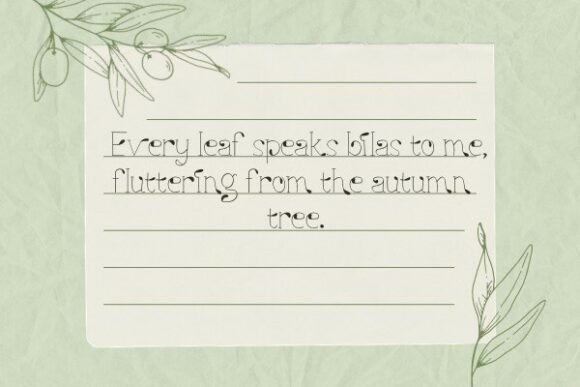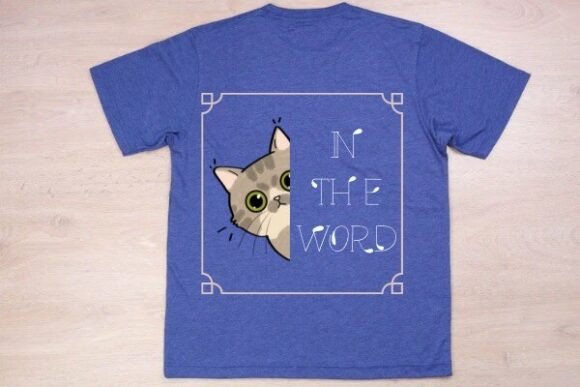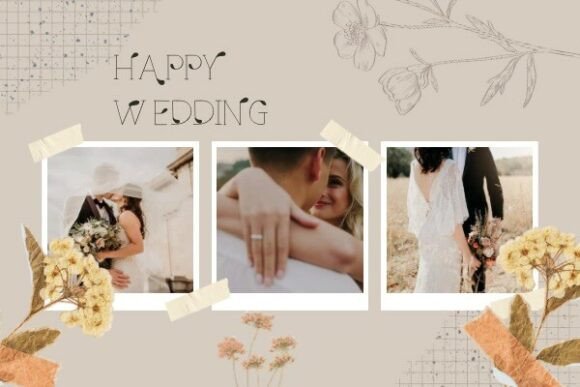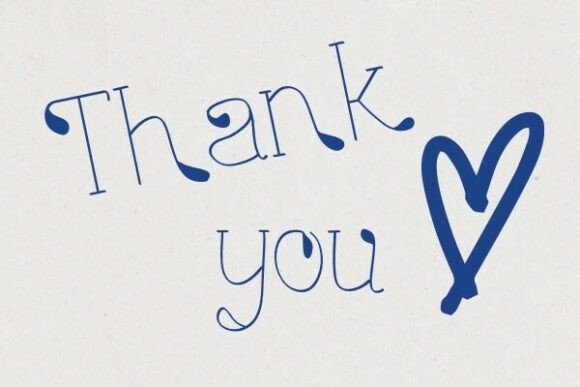
Introduction to Maiddie Font
Do you ever find yourself in the middle of a creative project, pouring your heart and soul into a design, and suddenly, the perfect font just doesn’t exist? You imagine the perfect handwritten feel, but can’t quite put your finger on it. This is where the Maiddie Font comes in – a game-changing, high-quality design resource that’s sure to elevate your next creative project.
Whether you’re working on a T-shirt design, a coffee mug, or a greeting card, the Maiddie Font is the perfect choice. Its unique, handwritten style is not only captivating but also instantly recognizable. With a free download available, you can start using this amazing font in your next project today, complete with a transparent background for seamless integration into your designs.
Key Features of Maiddie Font
- High-quality, vector-based font design suitable for various creative projects
- Perfect for designers looking for a unique and stylish design resource
- Includes a wide range of characters, including uppercase and lowercase letters, numbers, and punctuation marks
Honest Review: Maiddie Font
As a designer, I’m always on the lookout for unique and high-quality design resources to elevate my creative projects. Recently, I stumbled upon Maiddie Font, and I’m excited to share my honest review with you.
- The font features a beautiful, transparent background that adds an extra layer of sophistication to any design.
- It’s perfect for creatives working on projects that require a touch of elegance and refinement.
- One potential limitation is that Maiddie Font may not be suitable for projects that require a bold or playful font style.
- The font’s transparent background can also make it challenging to use in certain design contexts, such as when combining with busy backgrounds.
Overall, I’m impressed with Maiddie Font’s quality and versatility. While it may have some limitations, it’s definitely a valuable addition to any designer’s toolkit. With its elegant design and high-quality features, Maiddie Font is sure to inspire creativity in your next project.
Maiddie Font is a high-quality design resource that can be used in various creative projects such as: logo designs, branding materials, social media graphics, and more. The font’s transparent background makes it easy to use in designs with complex backgrounds.
To get the most out of Maiddie Font, use it in conjunction with other design resources such as graphics and images. Experiment with different font sizes, colors, and styles to create unique and creative designs. The font’s high-quality design makes it perfect for use in professional and personal projects.